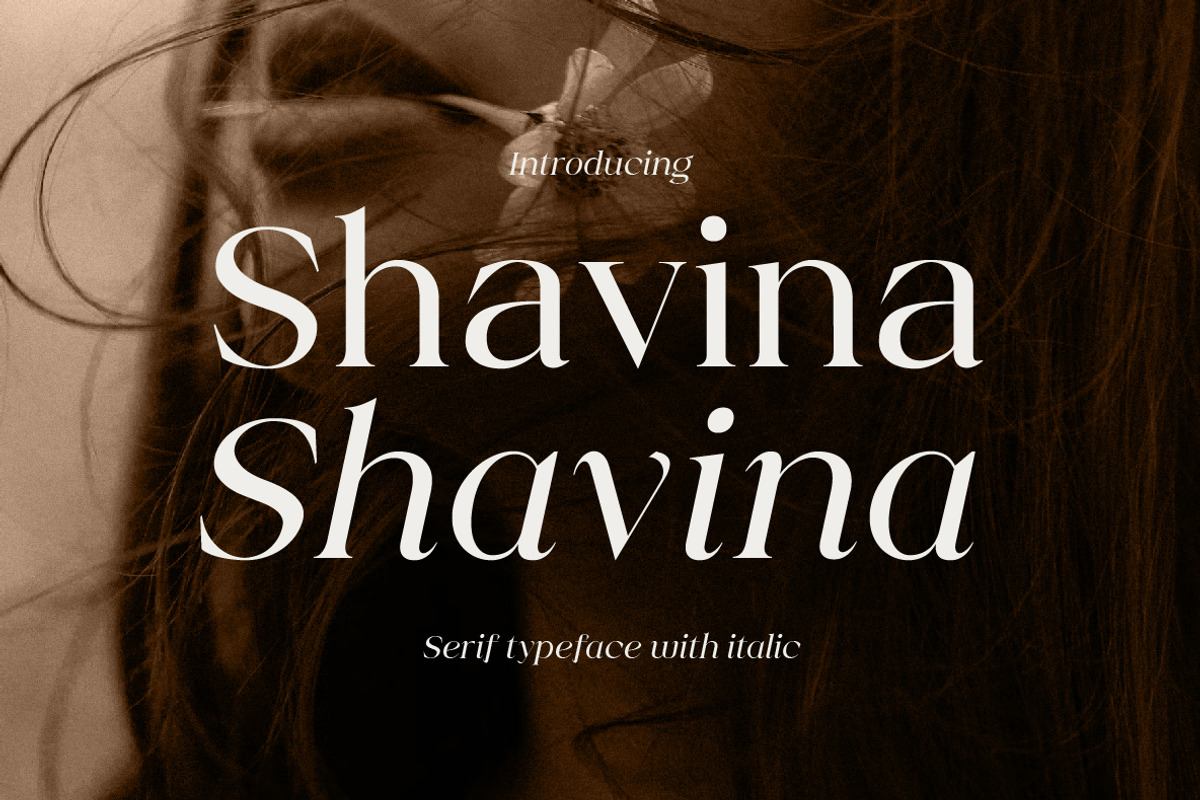
The Shavina Serif Typeface Free Download is an elegant and sophisticated font that adds a touch of class to any design. Its beautifully crafted serifs and refined letterforms make it perfect for projects that require a blend of traditional and modern appeal. Whether you're creating a logo, poster, or website, this typeface provides the versatility and style needed for professional results.
Shavina Serif Typeface Free Download is ideal for designers who seek a high-quality serif font with timeless appeal. Whether used in branding, headlines, or print materials, it ensures your designs stand out with sophistication. Download this stunning typeface today and elevate your creative projects!